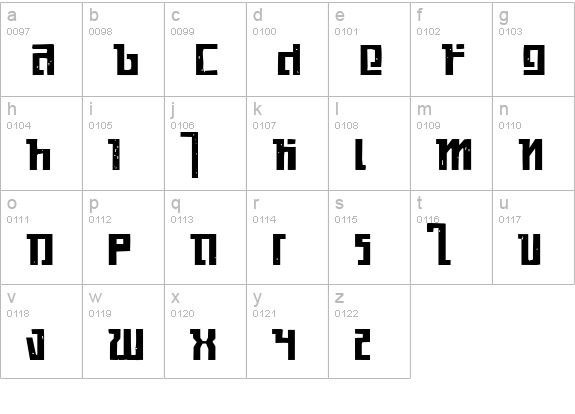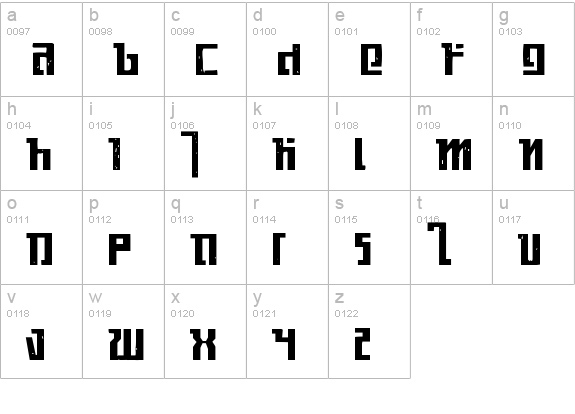
Kasikorn Metacide Font Details
Kasikorn Metacide font is a visually captivating typeface that combines modern aesthetics with a touch of elegance. With its sleek and clean lines, this font is perfect for creating bold and eye-catching designs. Whether you're working on a logo, branding materials, or any other creative project, Kasikorn Metacide will effortlessly add a touch of sophistication. What sets Kasikorn Metacide font apart is its versatility. It can be used for both headlines and body text, making it a go-to choice for designers who want consistency throughout their projects. The font's generous spacing ensures readability, even at smaller sizes, while its unique letterforms add personality and flair. One of the best things about Kasikorn Metacide font is that it is free to download at FontsMarket.com. This means that you can add this stunning typeface to your font library without any cost, allowing you to create professional-looking designs without breaking the bank. So why wait? Enhance your designs today with the bold and captivating Kasikorn Metacide font, freely available for download at FontsMarket.com. Unleash your creativity and make a lasting impression with this exceptional typeface.